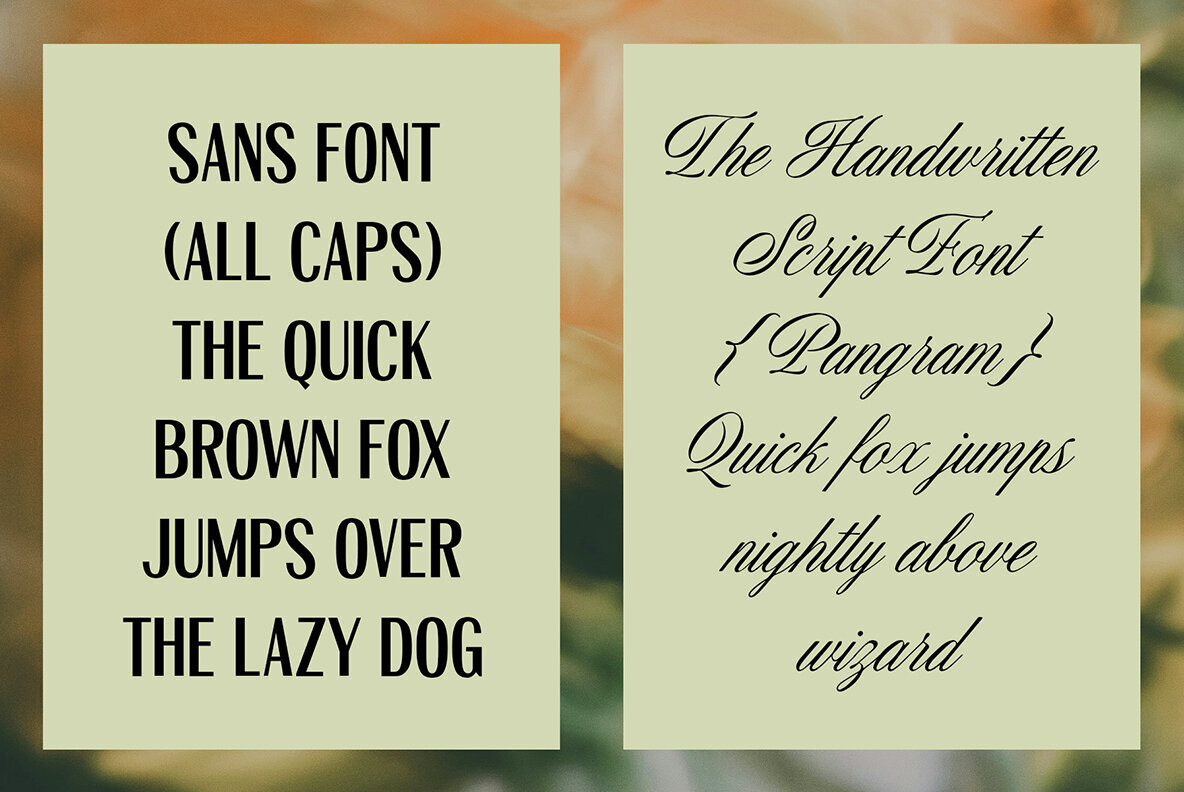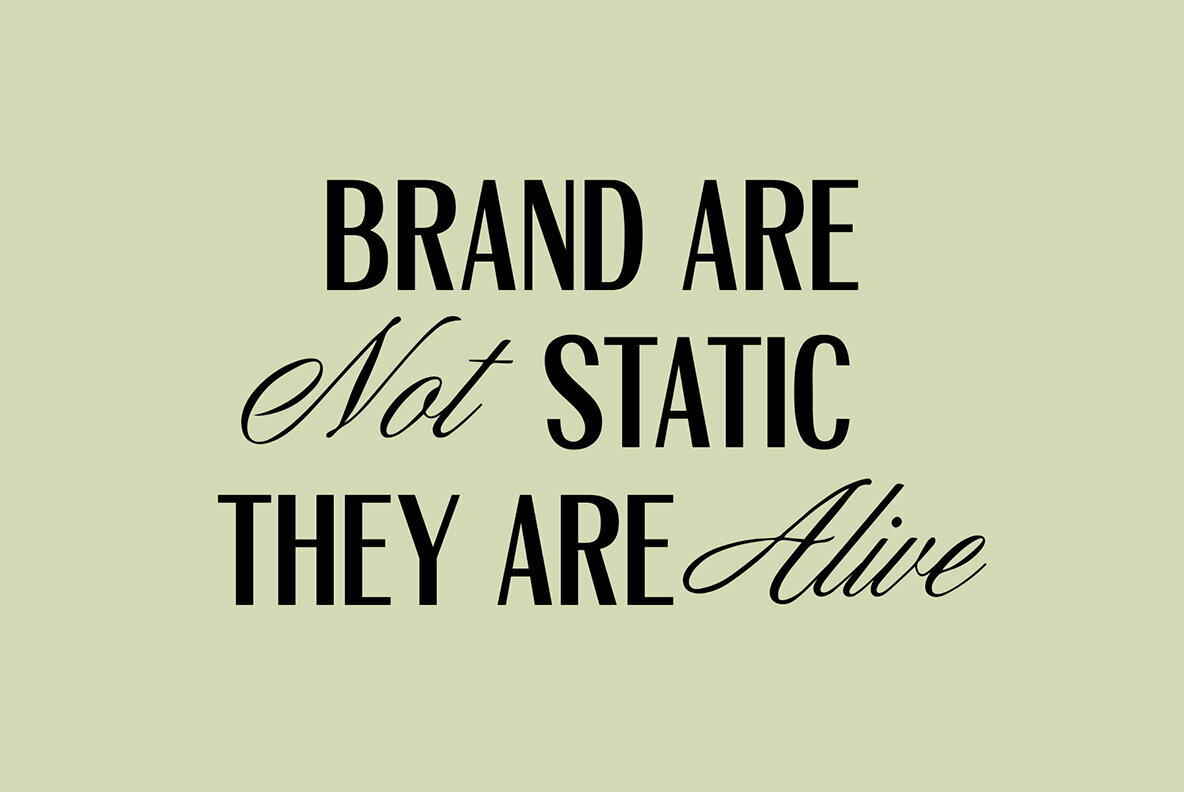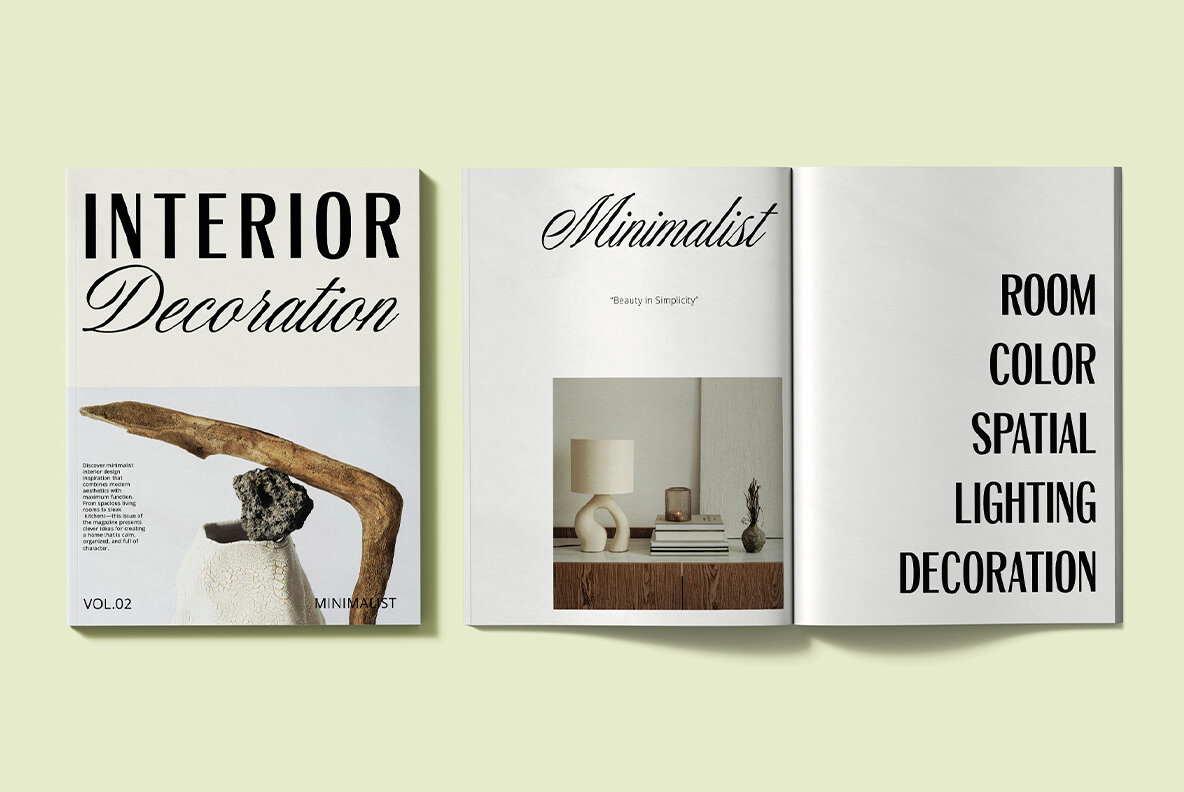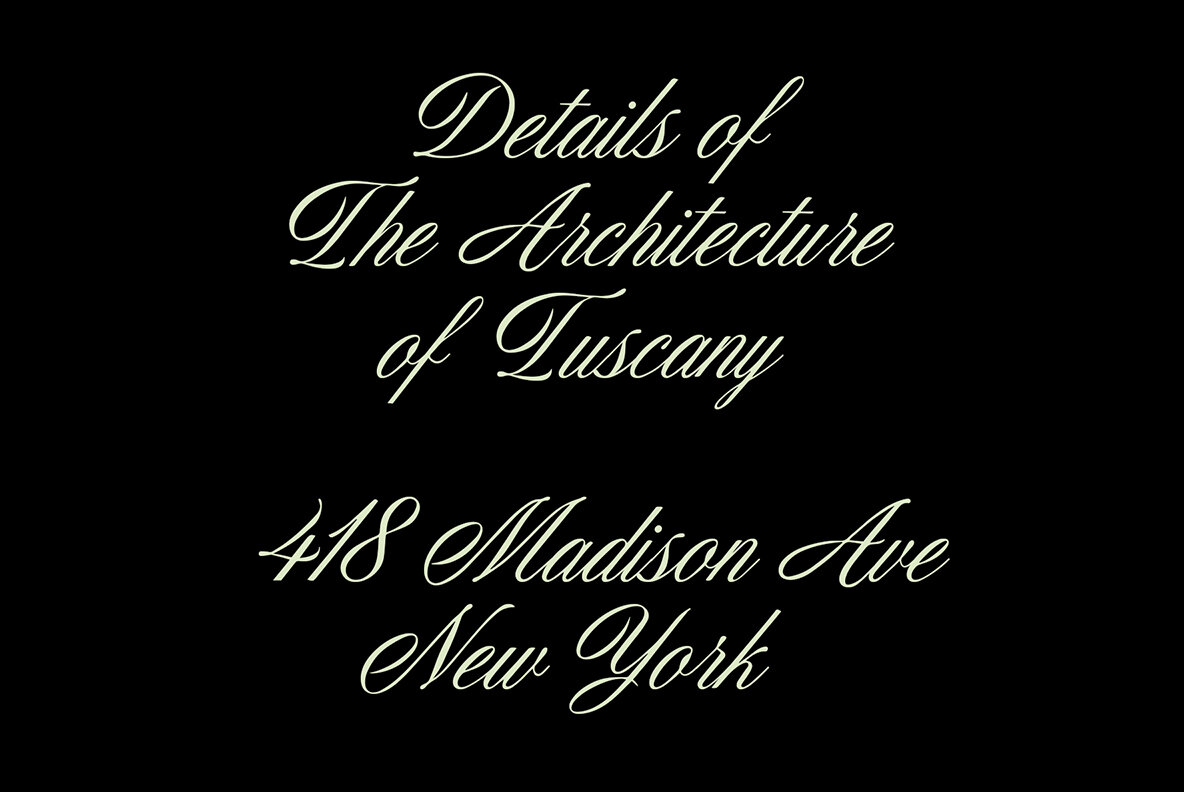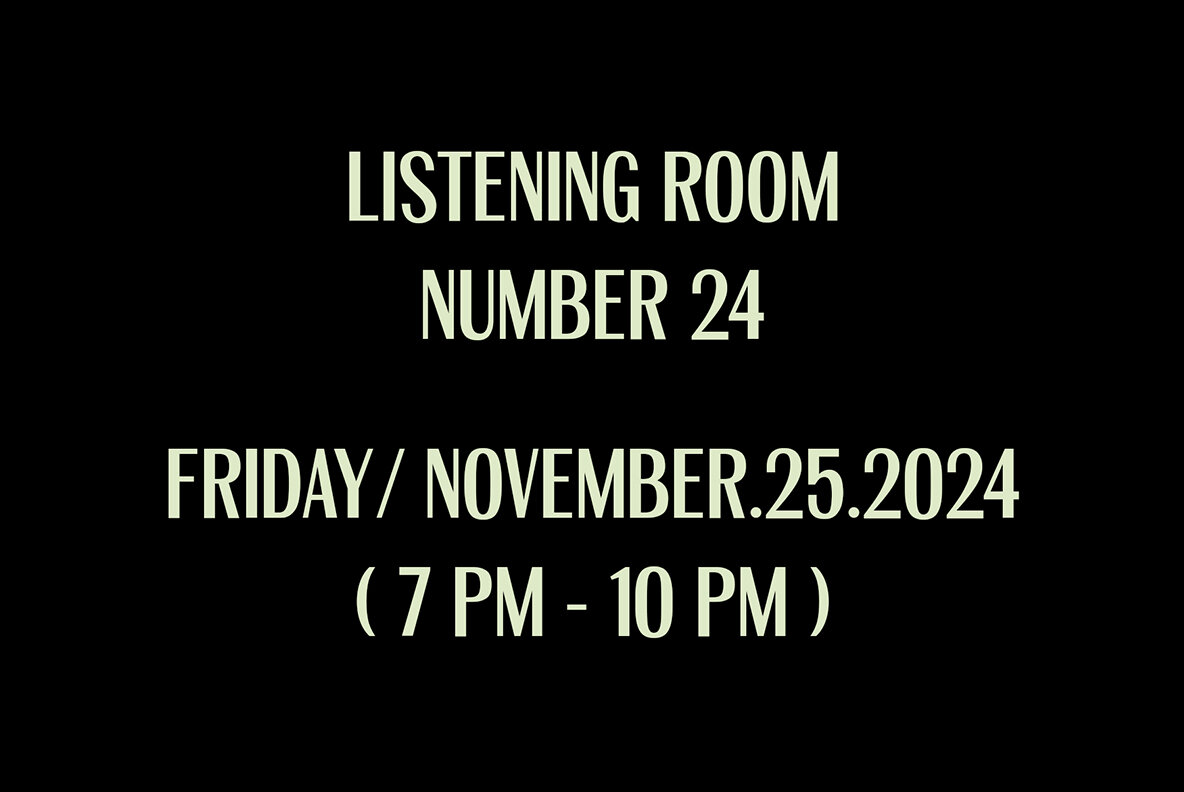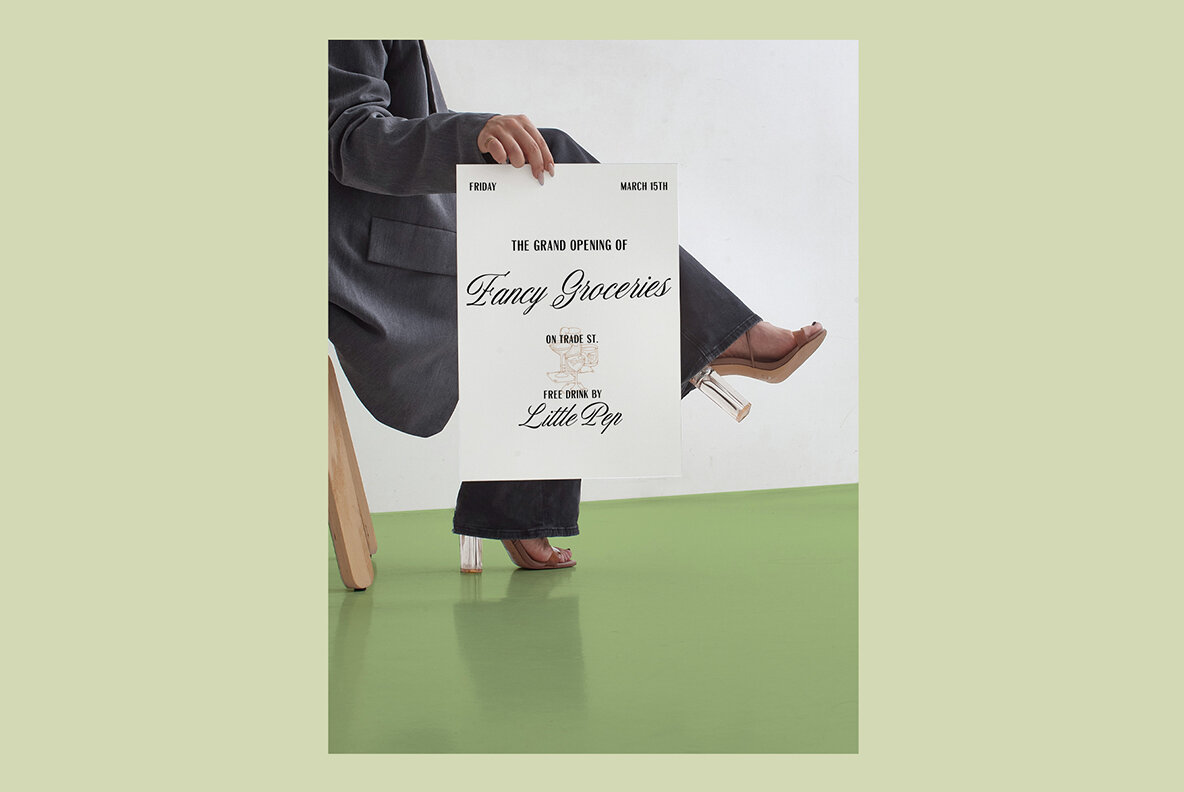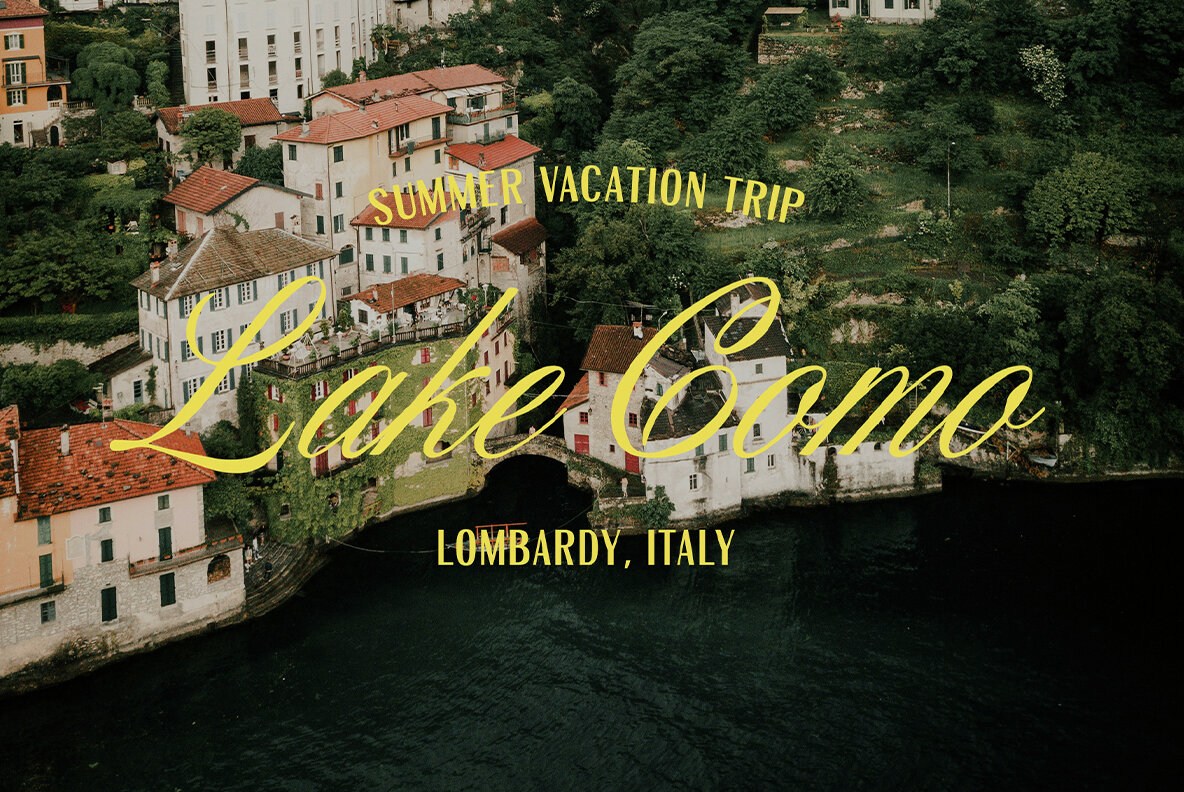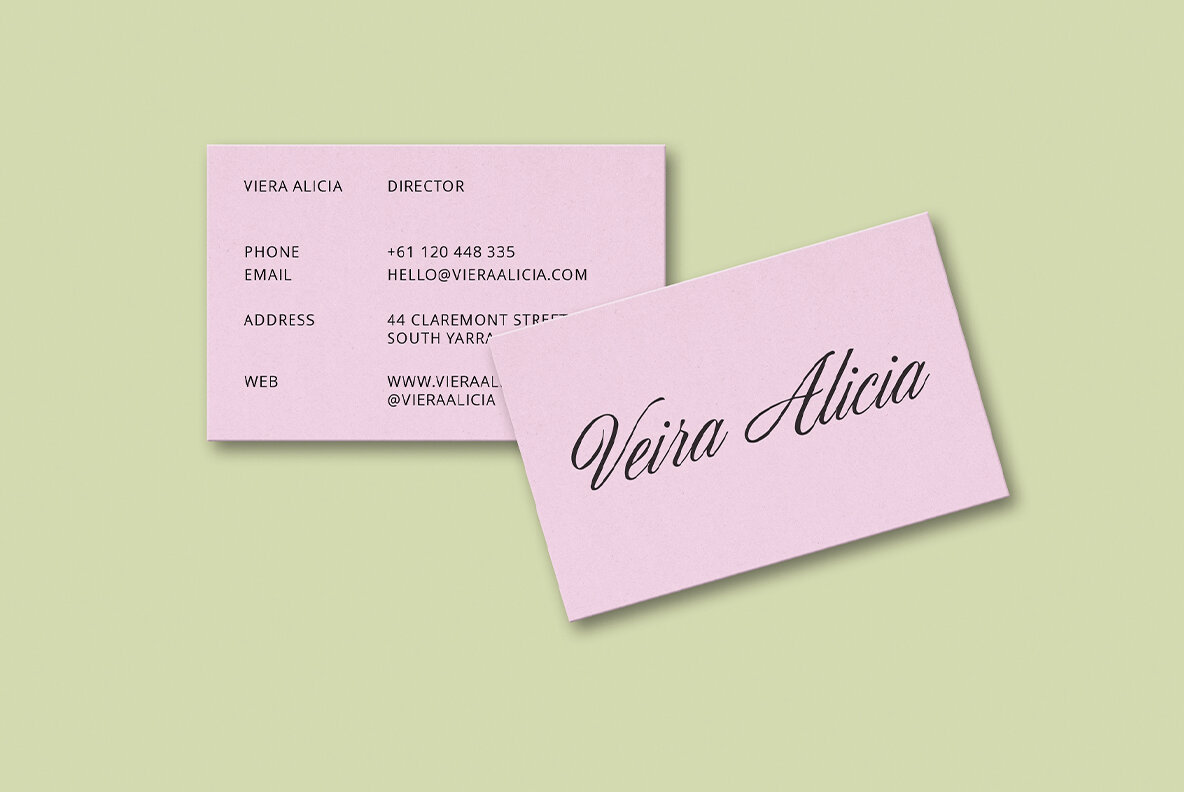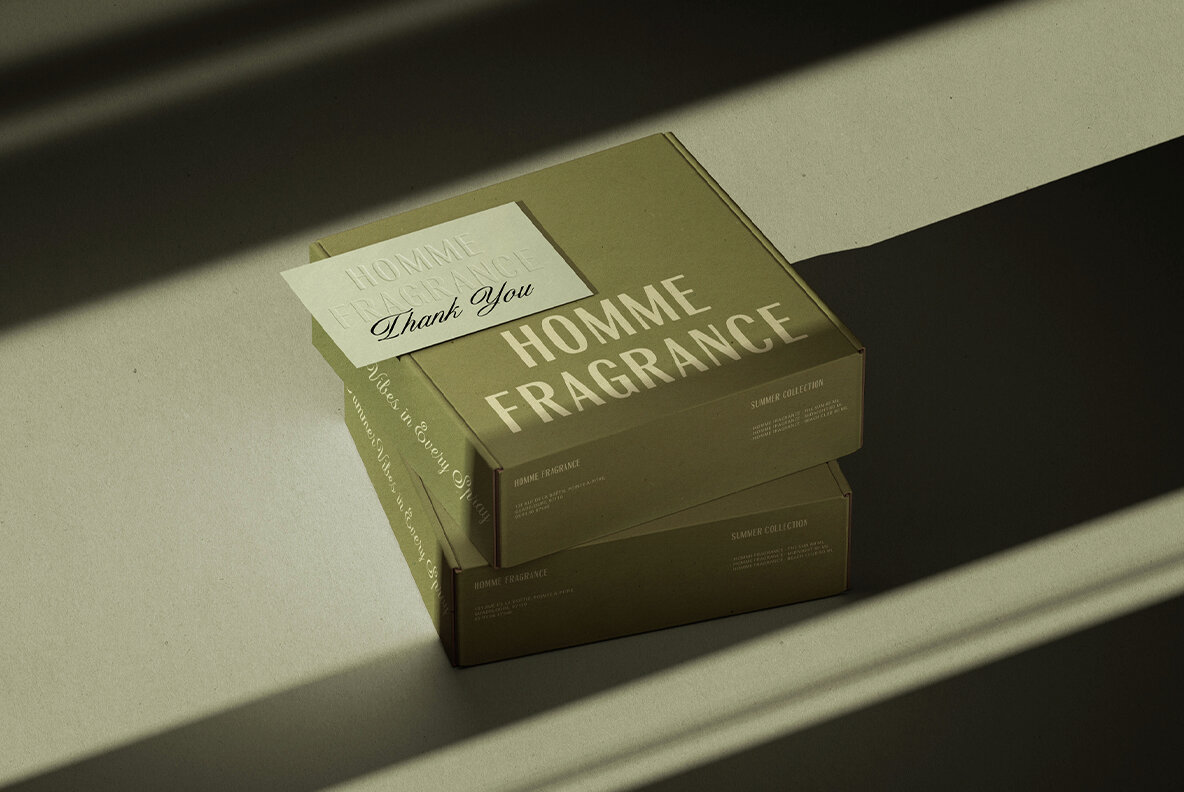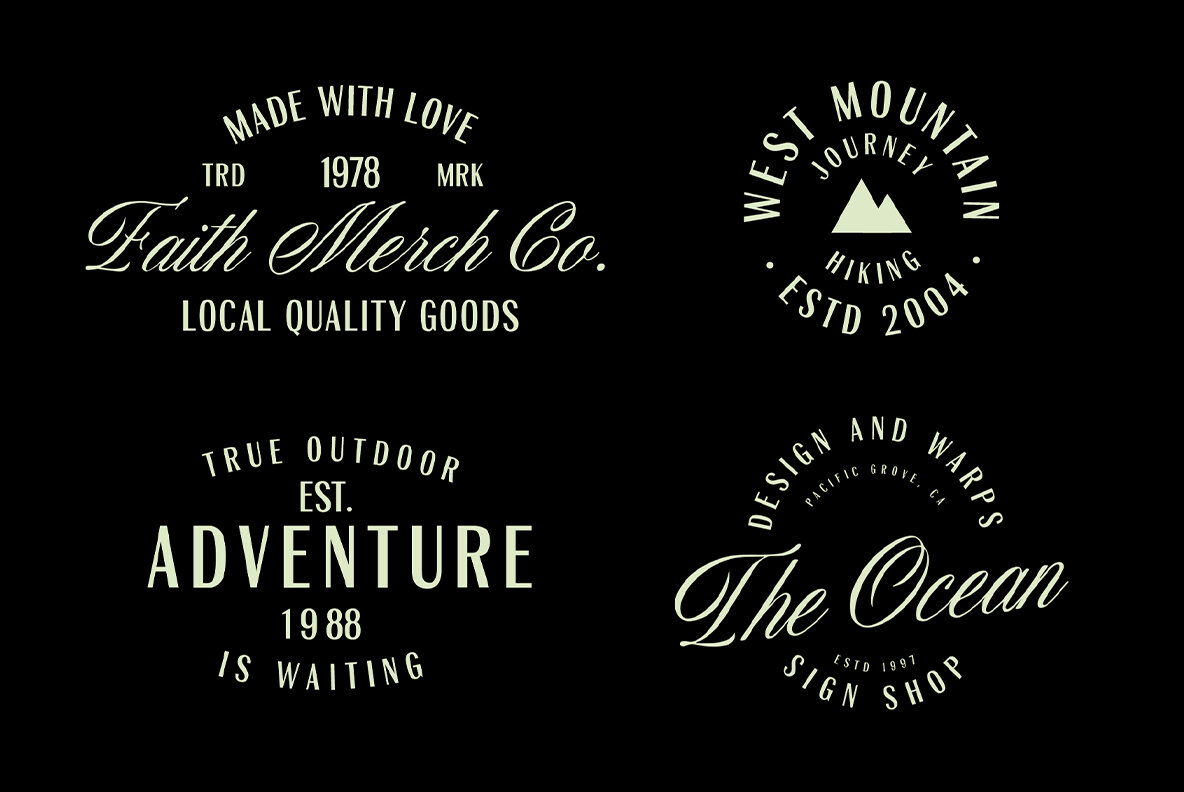
ED Venta Nueva Font
ED Venta Nueva Sans
ED Venta Nueva Script
Venta Nueva offers a distinguished pairing of classic elegance and modern minimalism. This sophisticated font duo enriches design projects with its compelling blend of two distinct typefaces. With Venta Nueva, designers can effortlessly achieve visual contrast and versatility, perfect for both classic and contemporary projects.Venta Nueva: A Harmonious Font Duo